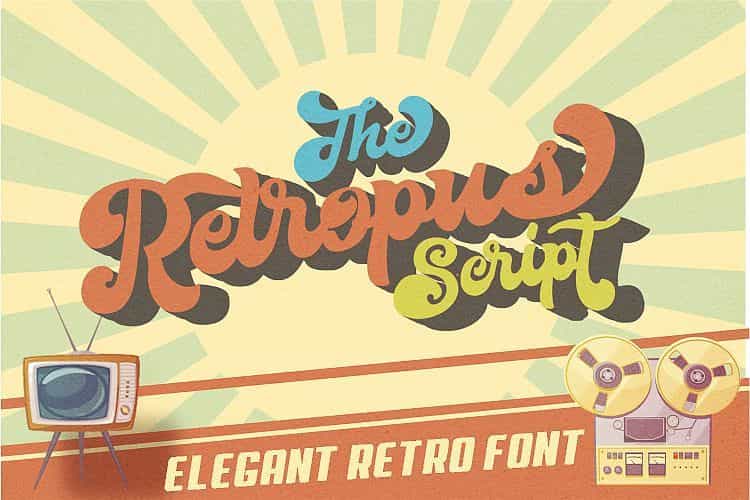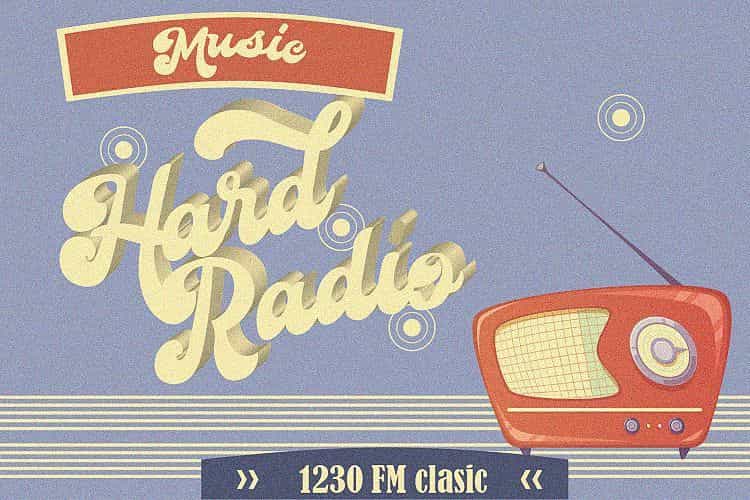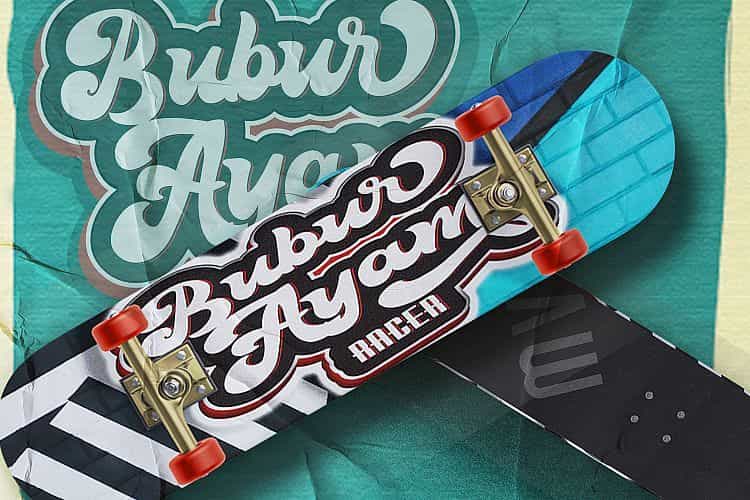
Introducing The Retropus Font. It is the design and is shared by Mhdafifersya. The Retropus Script designed with a human touch is to be found on every curve. I wish this could be the one that will motivate you. The font has a very strong baseline and a very bouncy character. It is the perfect pair for the complimentary marker font and a super handy set of bonus Swash.